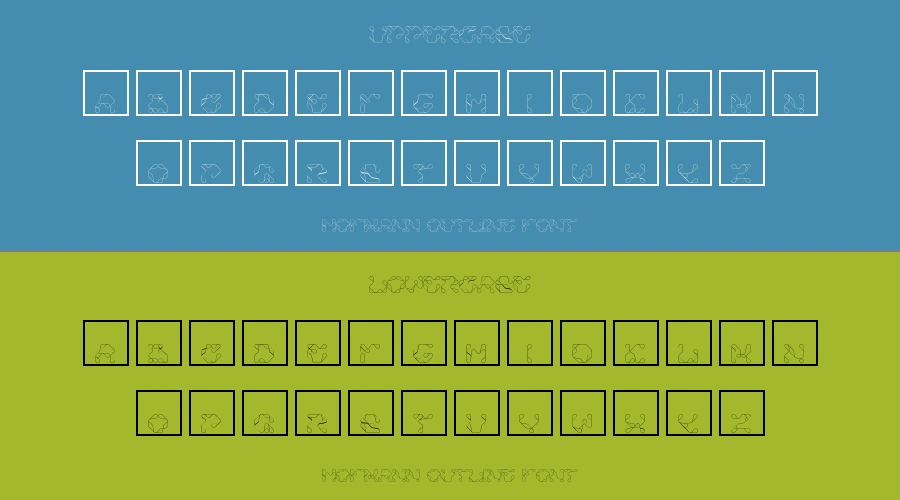
About Hofmann Outline Font
When typographic excellence matters most, Hofmann Outline Font delivers through its thoughtful blend of clean lines and enduring style. Specially crafted for web design, it offers the impact and ceremonial suitability required for sophisticated design work. Every detail serves a purpose.
The character set showcases thoughtful details like curved brackets alongside functional small caps. This proves especially valuable in research articles, where color consistency directly influences results. Particular attention was paid to proportion and user perception during development.